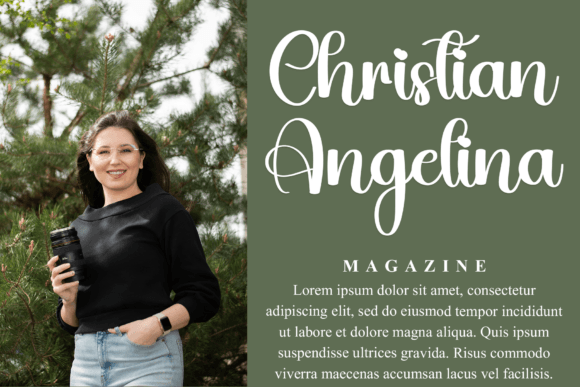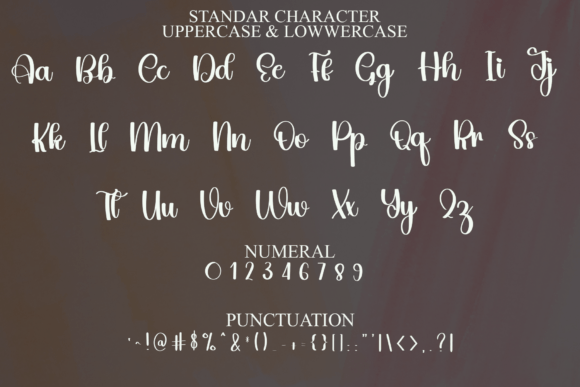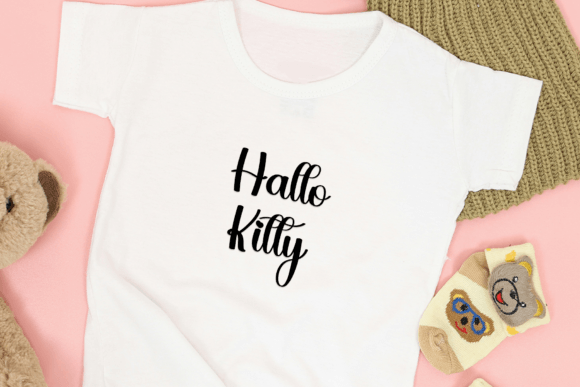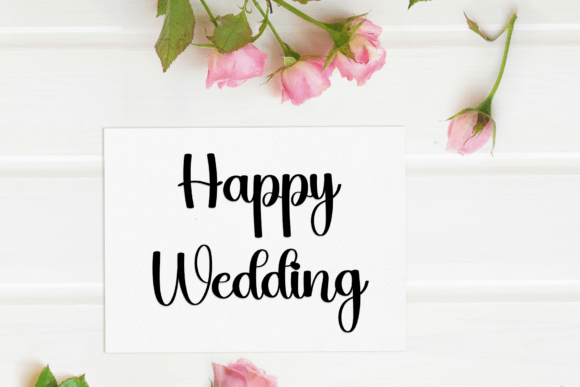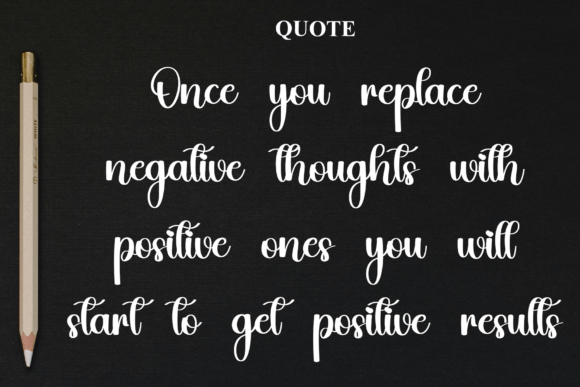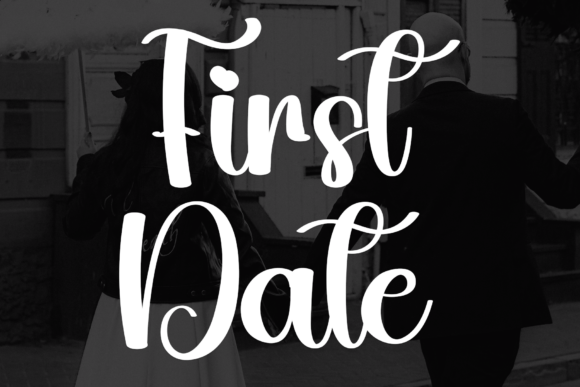
Introduction to Romantic Party Font
As a designer, there’s nothing quite like the thrill of bringing a creative project to life. Whether it’s a wedding invitation, a birthday card, or a festive decoration, the right font can make all the difference. And that’s exactly where the Romantic Party Font comes in – a bold, handmade font that adds a playful and charming touch to your designs.
With its unique, hand-drawn style, the Romantic Party Font is perfect for designers who want to add a personal touch to their projects. Its thick letters make it easy to read and eye-catching, giving your designs a warm and friendly feel. And the best part? It’s a high-quality design resource that’s available for free download, complete with a transparent background that makes it easy to customize.
Key Features of Romantic Party Font
- High-quality, elegant design ideal for creative projects like wedding invitations, party decorations, and more.
- Comes in 6 different font styles, each with unique characteristics and ornaments to add a touch of romance and whimsy.
- Supports a wide range of languages, including Latin, Cyrillic, and Greek alphabets.
- Perfect for designers, artists, and crafters looking for a unique and romantic design resource for their next creative project.
Honest Review: Romantic Party Font
As a designer, I’m always on the lookout for high-quality fonts that can elevate my creative projects. Recently, I stumbled upon the Romantic Party Font, and I’m excited to share my honest review with you.
What works well: ✨ The Romantic Party Font has a beautiful, elegant design that’s perfect for weddings, baby showers, and other romantic occasions. The font is highly customizable, allowing you to adjust the size, color, and style to suit your needs. The transparent background feature is also a great addition, making it easy to layer the font over images and other design elements.
- High-quality design: The font is well-designed and looks great in a variety of contexts.
Limitations: ⚠️ While the Romantic Party Font is generally a great resource, it does have some limitations. The font is not suitable for formal or professional projects, and the design may not be to everyone’s taste.
Overall impression: I’m impressed with the Romantic Party Font, and I think it’s a great addition to any designer’s toolkit. While it may have some limitations, the font’s high-quality design and customizable features make it a valuable resource for creative projects.
How to Use Romantic Party Font
The Romantic Party Font is a high-quality design resource that can add a touch of elegance to your creative project. This free download font features a beautiful, intricate design that is perfect for romantic-themed projects.
Tips for Getting the Most Out of the Romantic Party Font
Here are a few tips for getting the most out of the Romantic Party Font:
- Use the font with a transparent background to create beautiful, layered designs.
- Experiment with different font sizes and styles to create unique and interesting effects.
- Combine the font with other design elements, such as graphics and images, to create a cohesive and visually appealing design.
The Romantic Party Font is perfect for a variety of creative projects, including:
- Wedding invitations and graphics.
- Birthday party invitations and decorations.